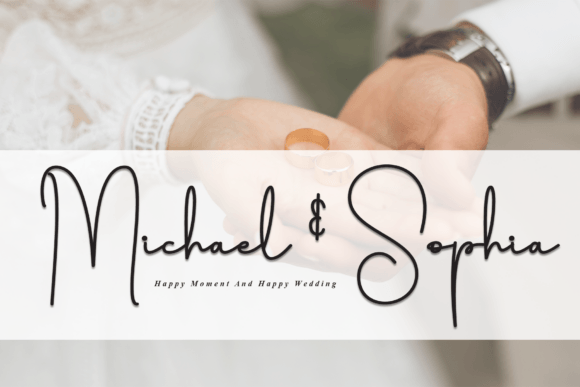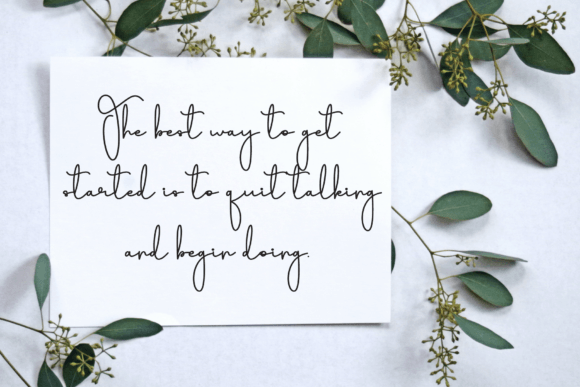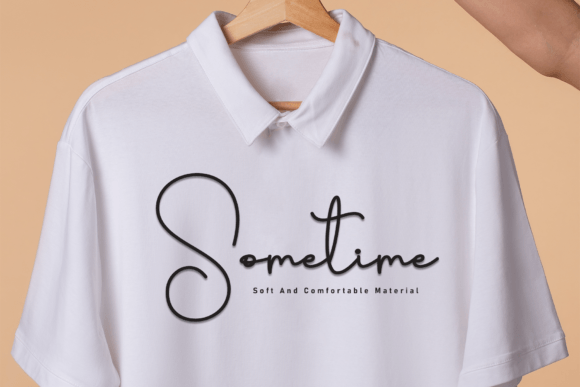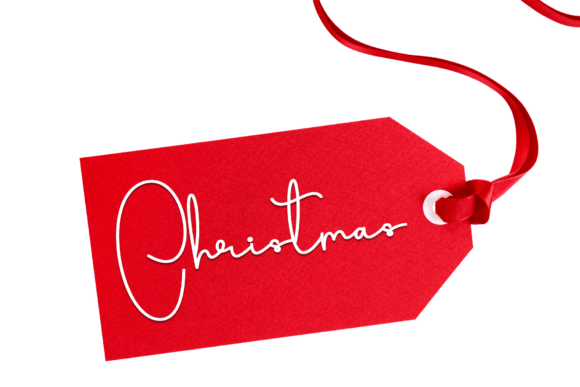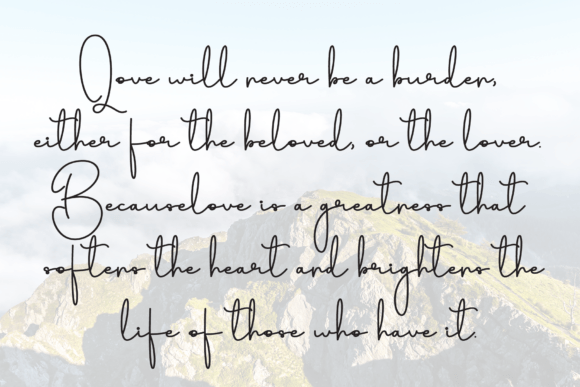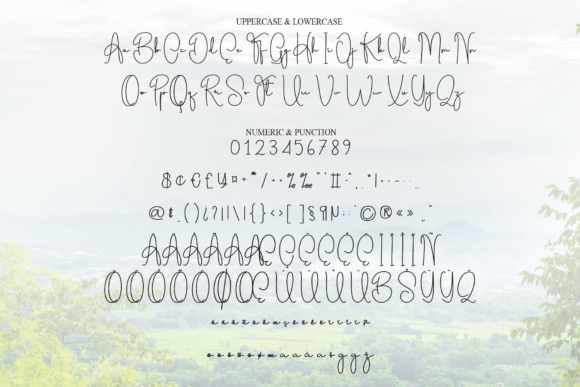
Enter the Hinterland Font, a delightful and inviting handwritten display font that’s sure to leave a lasting impression. With its unique sweetness and fun, friendly touch, this script font is perfect for expressing a sense of joy in wedding invitations, heartfelt cards, and a myriad of designs that could benefit from a sprinkle of magic. And the best part? It’s available for free download, making it a valuable design resource for creatives of all levels.
Key Features of Hinterland Font
- High-quality design resource ideal for creative projects, offering a unique aesthetic.
- Comes with a transparent background, making it perfect for use on various design elements.
- Features a modern, elegant design with clean lines and subtle details, suitable for a wide range of applications.
- Size: The font family includes multiple weights and styles, ranging from light to bold, to cater to different design needs.
Honest Review: Hinterland Font
As a designer, I’m always on the lookout for high-quality design resources to elevate my creative projects. The Hinterland Font caught my eye with its unique and rustic feel, making it a great addition to any design.
Here are some things that work well with the Hinterland Font: ✨
- High-quality glyphs that maintain their integrity even at larger sizes.
- Great for creating a sense of nostalgia or vintage feel in your design.
- Works well in a variety of contexts, from print to digital.
- Not as versatile as some other fonts, may not work well in all design scenarios.
Overall, I think the Hinterland Font is a great design resource for anyone looking to add a touch of rustic charm to their creative project. The transparent background makes it easy to work with, and the high-quality glyphs ensure a professional finish.
Hinterland Font
You can also use the Hinterland Font in Microsoft PowerPoint and Word to add a touch of sophistication to your presentations and documents. The font’s clean and modern design makes it perfect for business and professional projects.
The Hinterland Font is versatile and can be used in a variety of projects, including branding, marketing materials, and digital design. Its transparent background makes it easy to use in layered designs, and its high quality ensures that it looks great at any size.